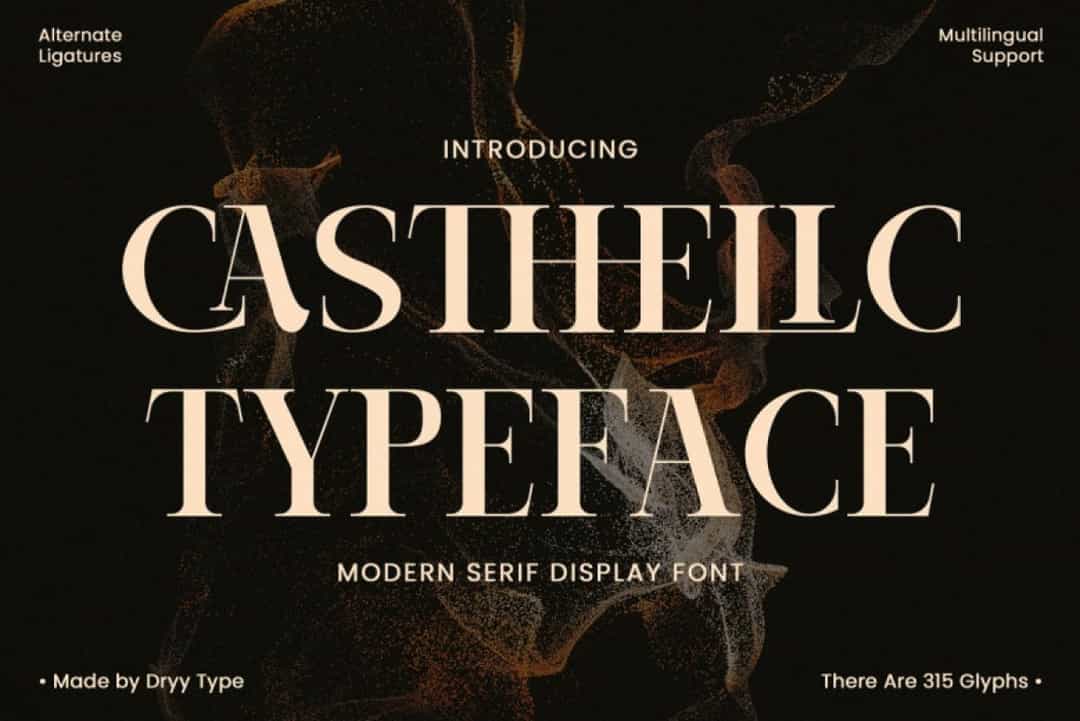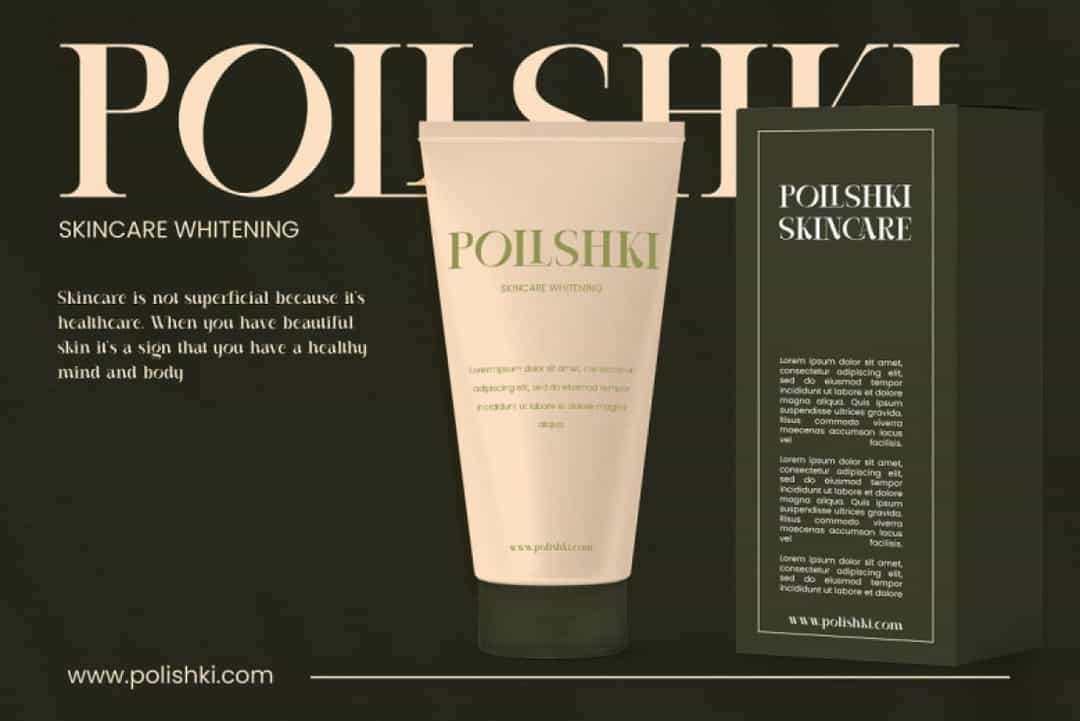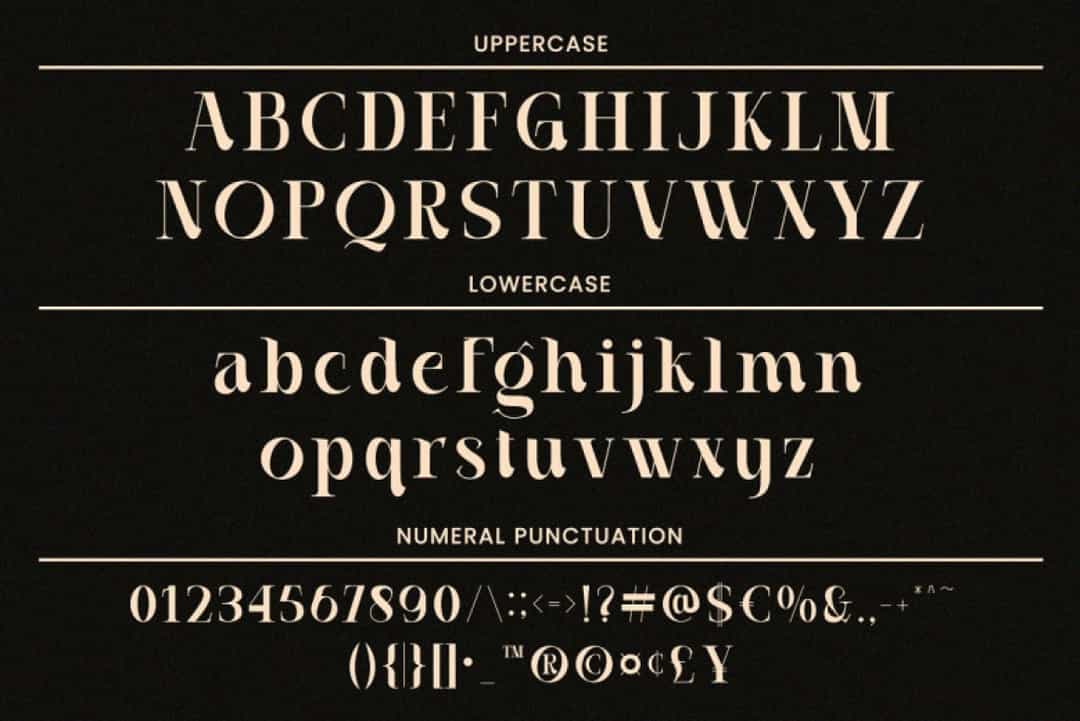
Casthelic can be described as an attractive serif typeface with an elegant yet distinctive design, suitable for various purposes and styles. I created it as an extremely meaningful yet versatile font which works well across various genres and elevates their quality even further. Add this font to your creative ideas and watch how they come to life!